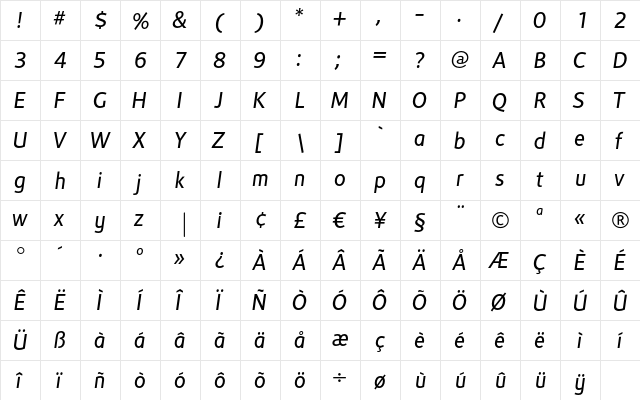
Metrolis ItalicoAlt
Design Context for Metrolis Typeface
Metrolis takes a measured approach to typography — its balanced proportions and neutral character make it a reliable workhorse for both digital and print work. The dynamic lean of this cut emphasises speed and emphasis in any layout.
Pro Tip: Try Metrolis for annotation and caption copy alongside an upright companion — the contrast in angle creates a dynamic but ordered typographic system.